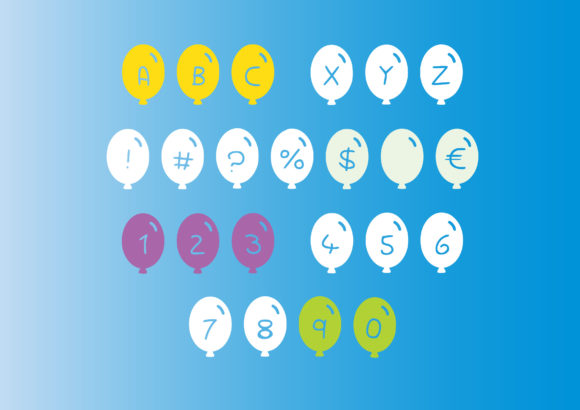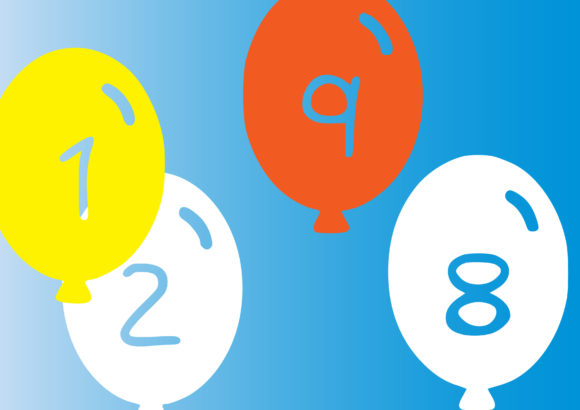
Introducing Balloon Play Font: Add a Touch of Whimsy to Your Designs
Are you looking for a font that can add a playful and childlike touch to your designs? Look no further than the Balloon Play Font! This delightful font is perfect for creating fun and colorful designs that are sure to bring a smile to anyone’s face. In this article, we’ll take a closer look at the Balloon Play Font and explore its features, benefits, and uses.
What is Balloon Play Font?
Balloon Play Font is a set of fun balloons with a playful, childlike font that’s perfect for spelling out anything related to colorful, bouncy balloons! The font is handwritten with rounded sides, giving it a friendly and joyful feel. It’s ideal for designers, crafters, and educators who want to add a touch of whimsy to their work.
Features of Balloon Play Font
The Balloon Play Font comes with a range of features that make it perfect for various design projects. Here are some of its key features:
• Uppercase, numbers, and limited punctuation/symbols: The font includes uppercase letters, numbers, and a limited set of punctuation and symbols, making it perfect for creating fun and colorful designs.
Benefits of Using Balloon Play Font
The Balloon Play Font offers a range of benefits for designers, crafters, and educators. Here are some of the advantages of using this font:
• Perfect for schools and home teaching: The font is ideal for educational projects, such as creating posters, worksheets, and activity sheets.
• Great for craft projects: The font is perfect for crafters who want to add a personal touch to their projects, such as scrapbooking, card making, and DIY crafts.
• Adds a playful touch: The font adds a playful and childlike touch to any design, making it perfect for projects that require a fun and whimsical feel.
Tips for Using Balloon Play Font
Here are some tips for using the Balloon Play Font in your designs:
• Use it for headings and titles: The font is perfect for headings and titles, where you want to grab the reader’s attention.
• Pair it with other fonts: The font can be paired with other fonts to create a unique and interesting look.
• Experiment with colors: The font looks great in bright, bold colors, but you can also experiment with pastel colors or monochromatic schemes.
The Balloon Play Font is a fun and playful font that’s perfect for designers, crafters, and educators who want to add a touch of whimsy to their work. With its rounded sides and childlike feel, this font is sure to bring a smile to anyone’s face. Whether you’re creating educational materials, craft projects, or social media graphics, the Balloon Play Font is a great choice. So why not give it a try and see how it can add a playful touch to your designs?